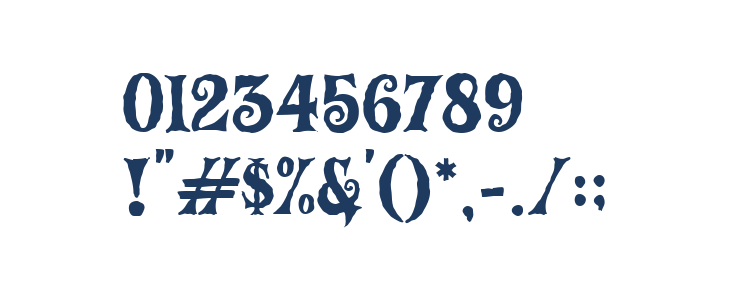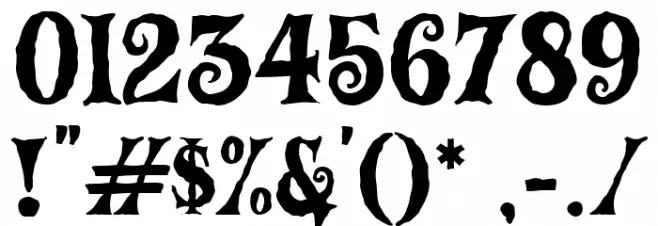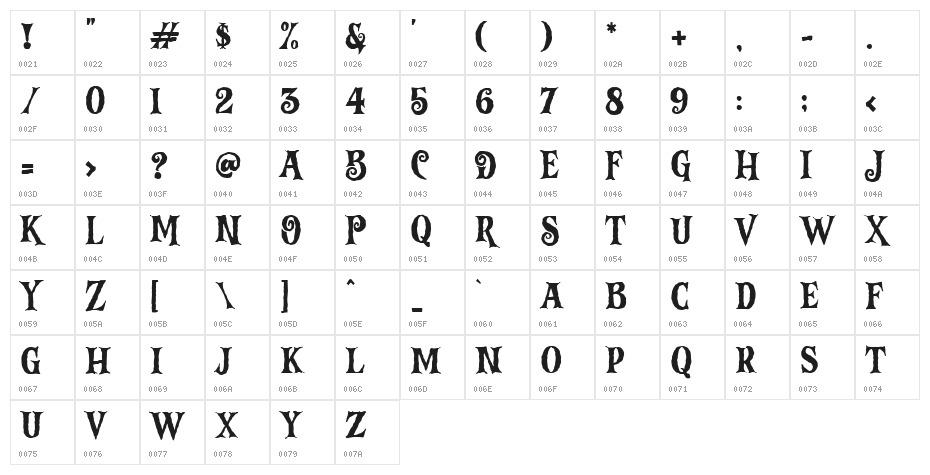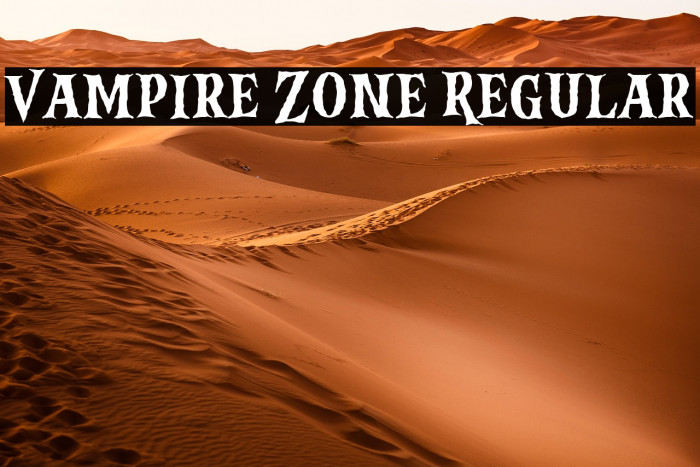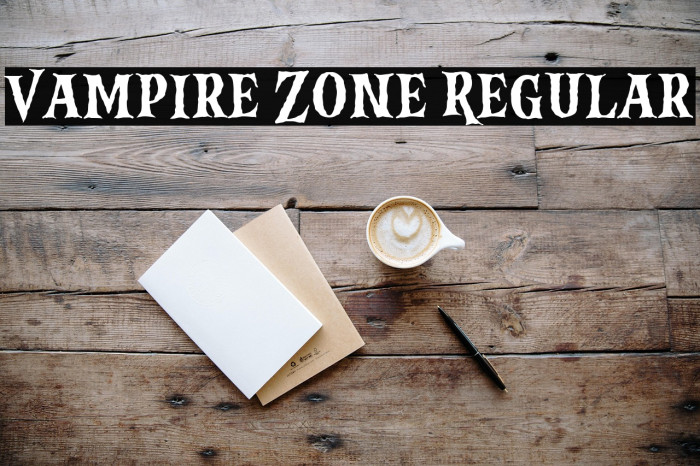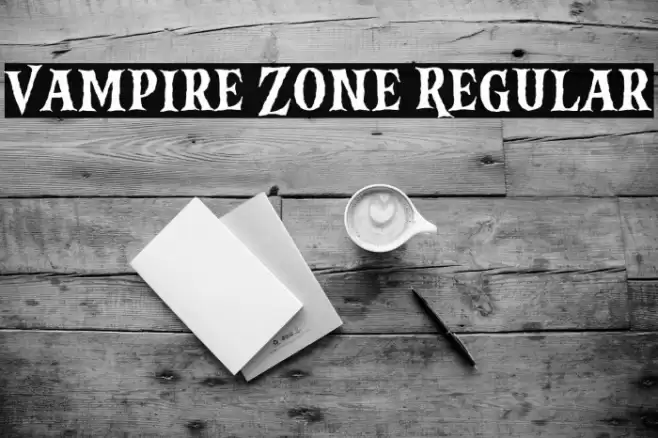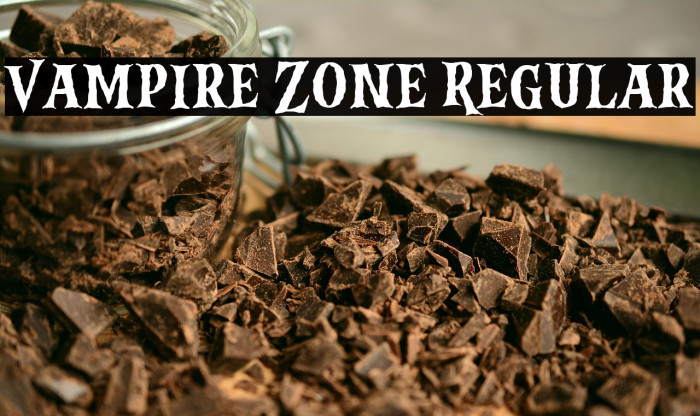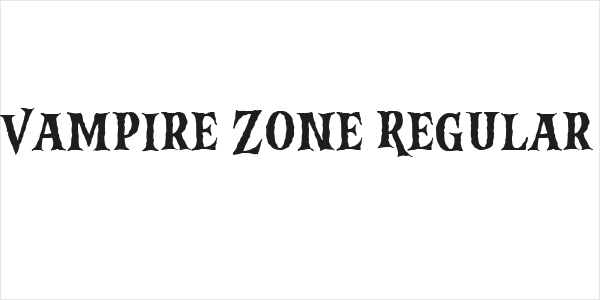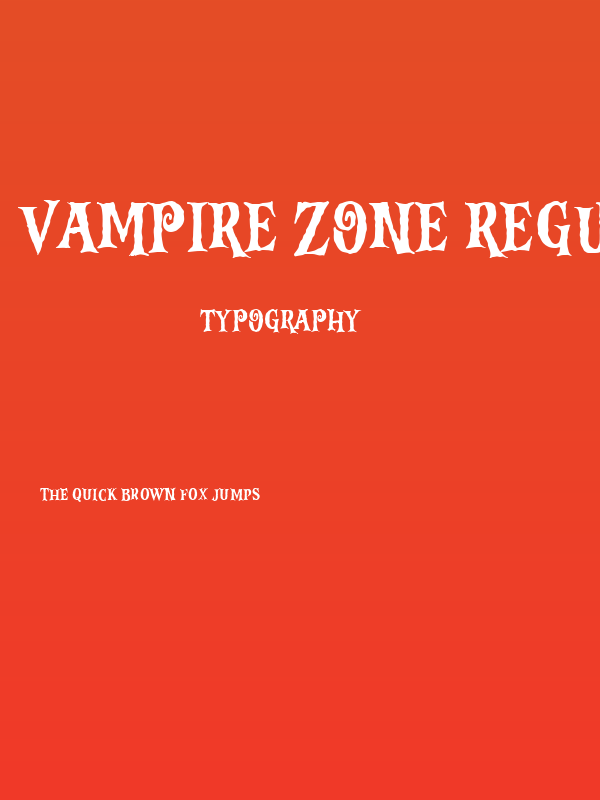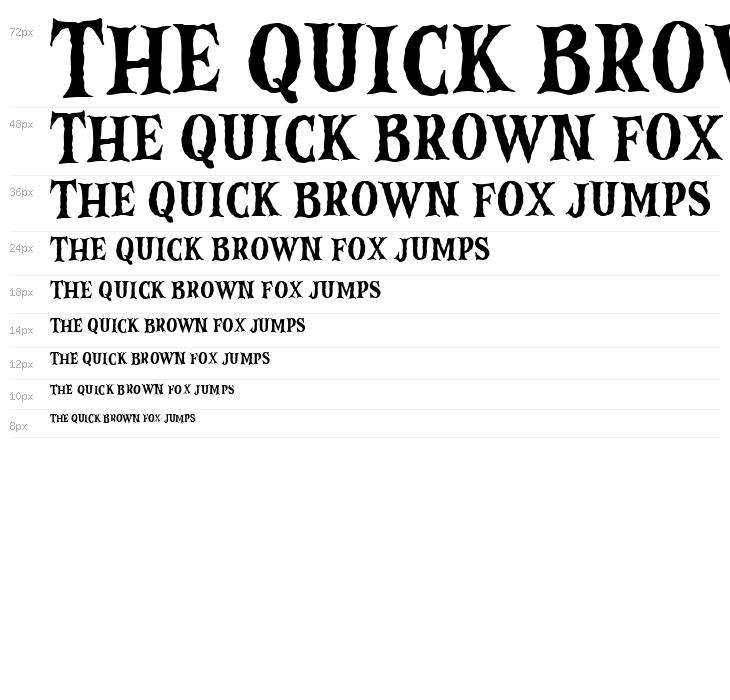
Vampire Zone Regular Font
Vampire Zone Regular Description
This font features a bold and dramatic style with a gothic flair, characterized by sharp edges and intricate curves. The uppercase letters are particularly striking, with some characters incorporating unique spiral elements that add a sense of mystery and intrigue. The numbers and special characters maintain this theme, offering a cohesive look across all glyphs. The overall design is reminiscent of classic horror or fantasy themes, making it ideal for projects that require a touch of the macabre or supernatural. The font's boldness ensures it stands out, while the detailed design elements provide a decorative touch.
| Overall Style | Gothic, Decorative |
| Use Case | Headlines, Posters, Logos |
| Proposed Projects | Ideal for Halloween-themed designs, horror movie posters, fantasy book covers, or any project needing a dramatic and mysterious typeface. |